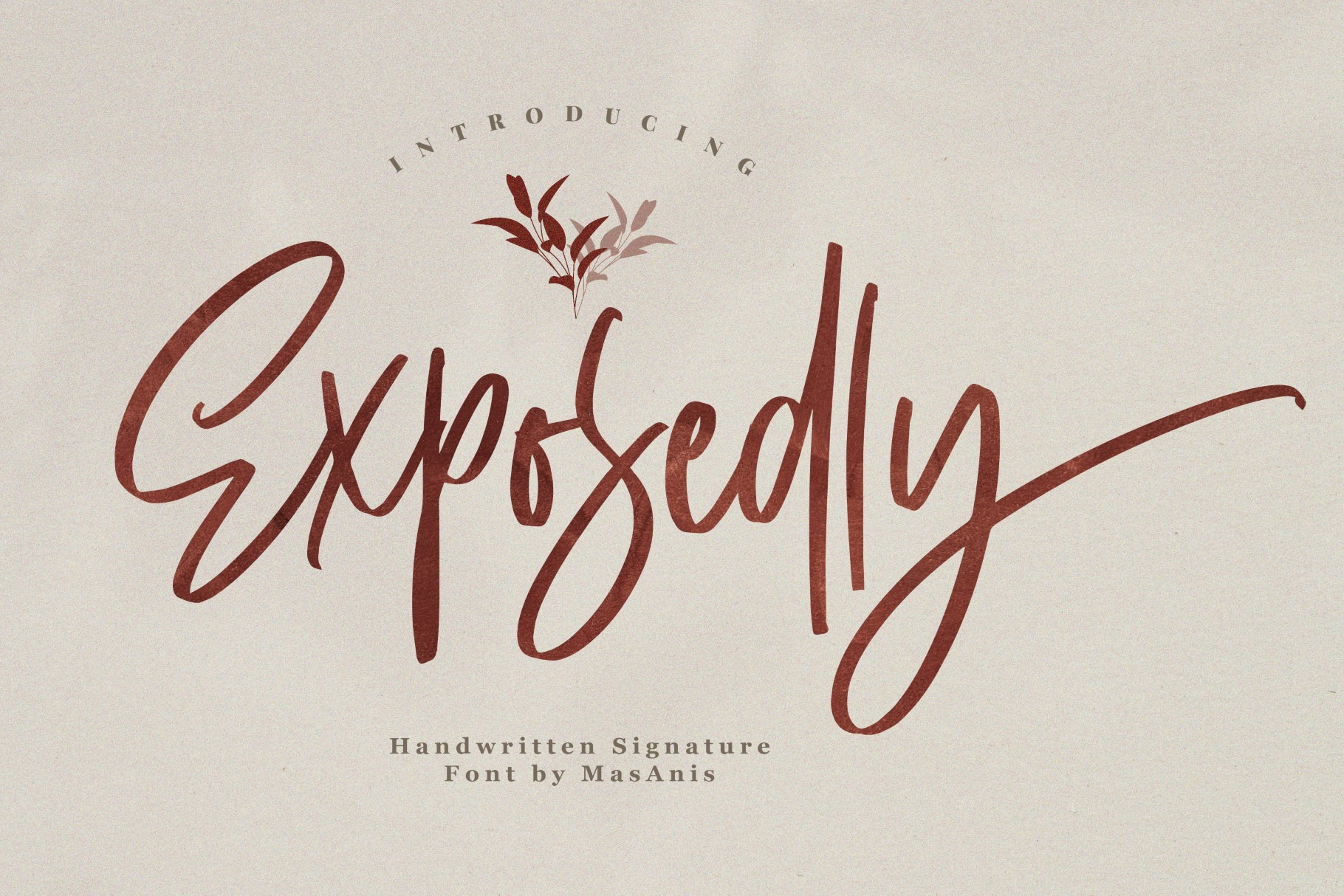
Exposedly - Classy Signature Font
Introducing Exposedly - Luxury Signature Font
A luxury signature font, this font perfect for logo, invitation, stationery, wedding designs, social media posts, advertisements, product packaging, product designs, label, photography, watermark, special events or anything and fonts are provided in TTF & OTF formats.